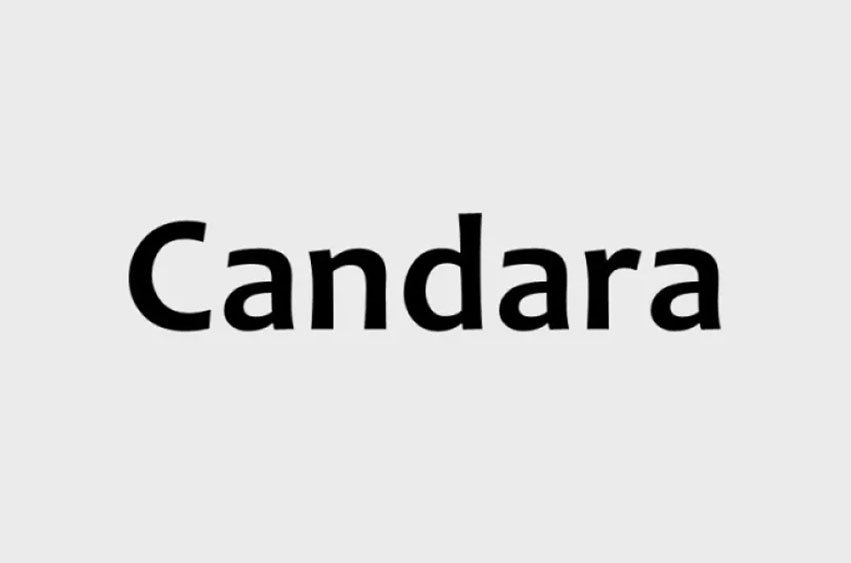
Candara Font
Candara Font is a modern sans-serif font typeface designed by Gary Munch for Microsoft and it is part of the Clear Type Font collection which is set of fonts designed by different designers for the new operating system Windows Vista that begins with the letter C to show that it is compatible with Microsoft Clear Type font rendering technology. Some of the other Clear Type fonts include Calibri, Cambria, Consolas, Corbel and Constantia among others.
Candara’s verticals have both an entasis and an ekstasis, as well as high-branching arcades in lower case, wide apertures of all types which are open, and unique ogee curves on diagonals. Candara italic includes most of the serif and calligraphic elements that are characteristic of modern sans-serif fonts such as Calibri or Corbel which are also part of this group: they have similar structures and designs.